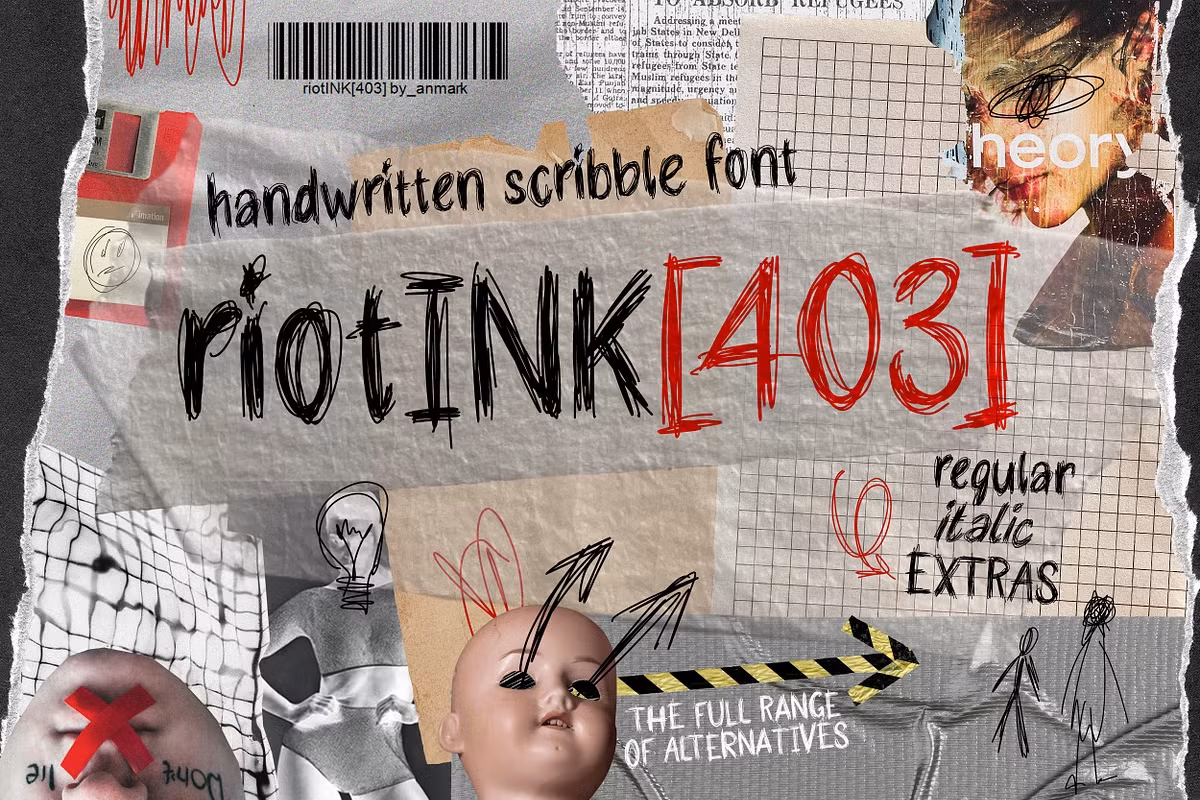
Riotink. Handwritten Scribble Font Free Download
RiotINK. Handwritten Scribble Font Free Download is a captivating typeface that embodies a rebellious and artistic spirit. Designed by AnMark, this font offers three distinct styles: Regular, Italic, and a wild Scribble variant, each adding a unique flair to your creative projects.
Inspired by the unpredictability of street art and the vibrant energy of zine culture, RiotINK transforms chaos into design gold. The Regular and Italic versions include uppercase and lowercase letters, numerals, and punctuation, while the Scribble style features anarchic doodles that break away from traditional letterforms. This makes RiotINK particularly well-suited for music album covers, grungy posters, or unconventional branding projects that embrace a DIY attitude.